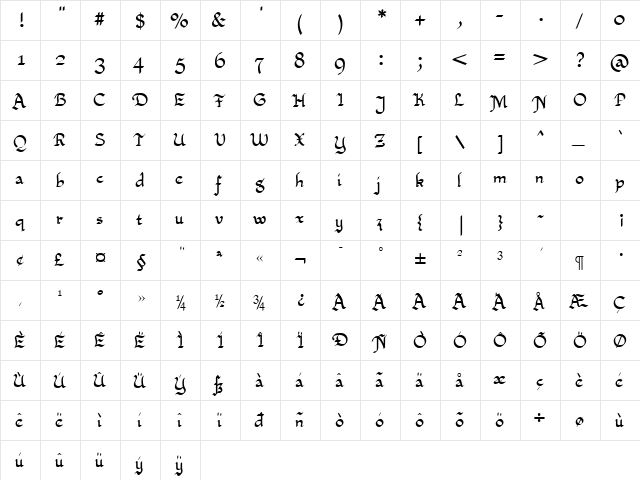
Xaltid Bold
Design Context for Xaltid Typeface
Xaltid is a composed and adaptable typeface that performs quietly and consistently across a wide range of design contexts. Its bold stroke weight gives it real presence on the page.